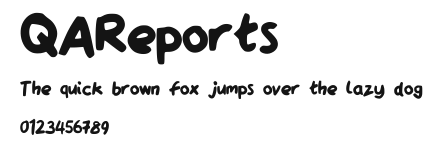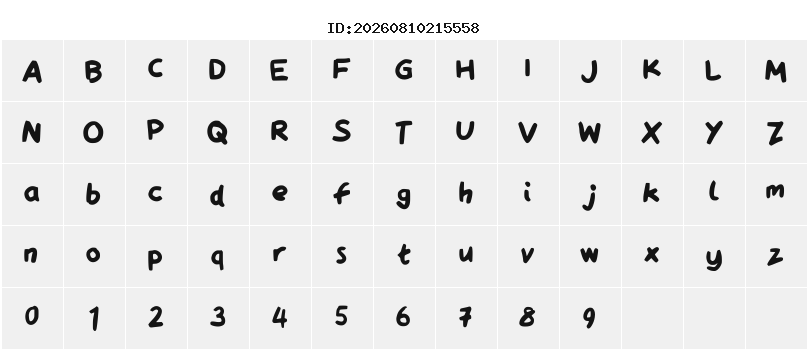
QAReports Preview
• Font Name: QAReports
• Full Font Name: QAReports
• PostScript Name: QAReports
About QAReports.ttf
QAReports.ttf is a modern, elegant sans-serif font designed for ultimate readability and visual harmony. Perfect for branding, headlines, web design, and print materials.